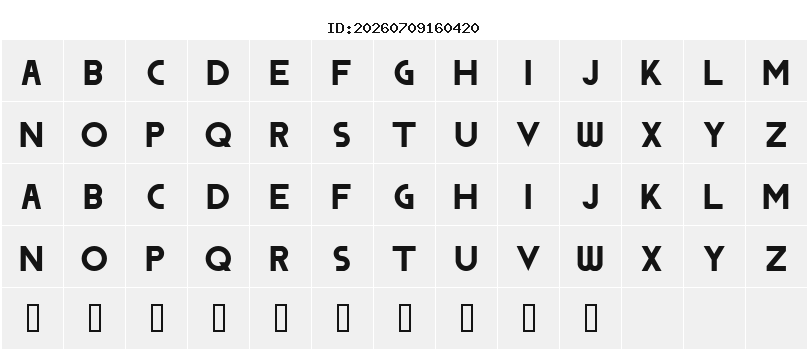
• Font Name: DODGE
• Designer: SAJI JOHNNY KUNDUKULAM
About DODGE.ttf
DODGE.ttf is a modern, elegant sans-serif font designed for ultimate readability and visual harmony. Perfect for branding, headlines, web design, and print materials.